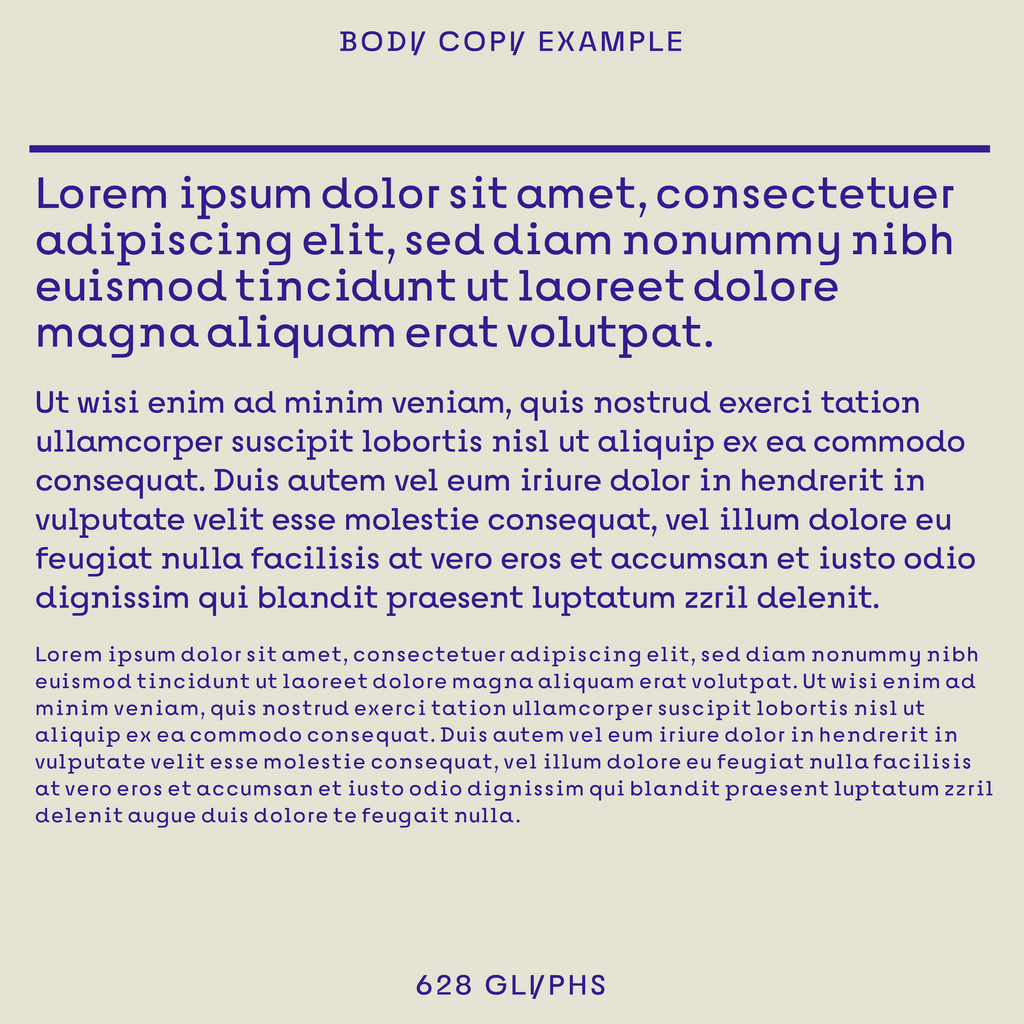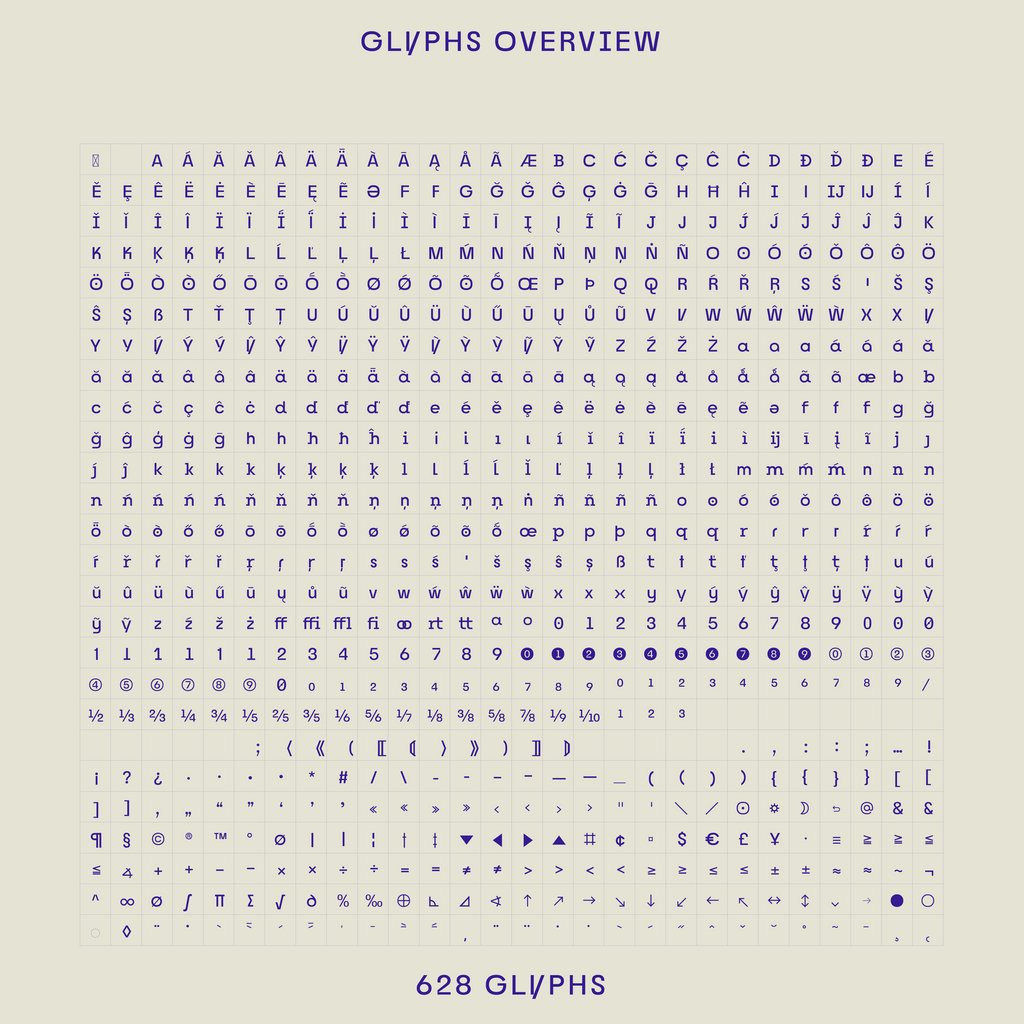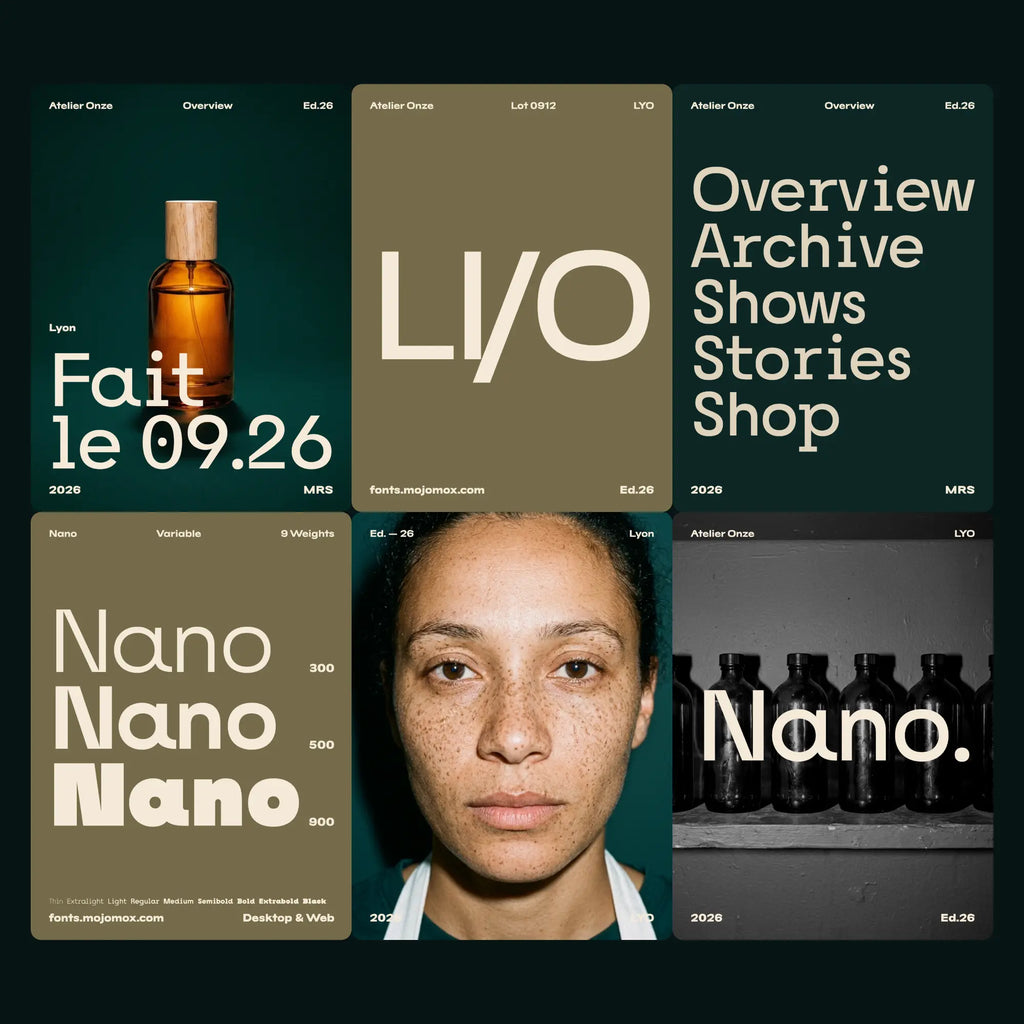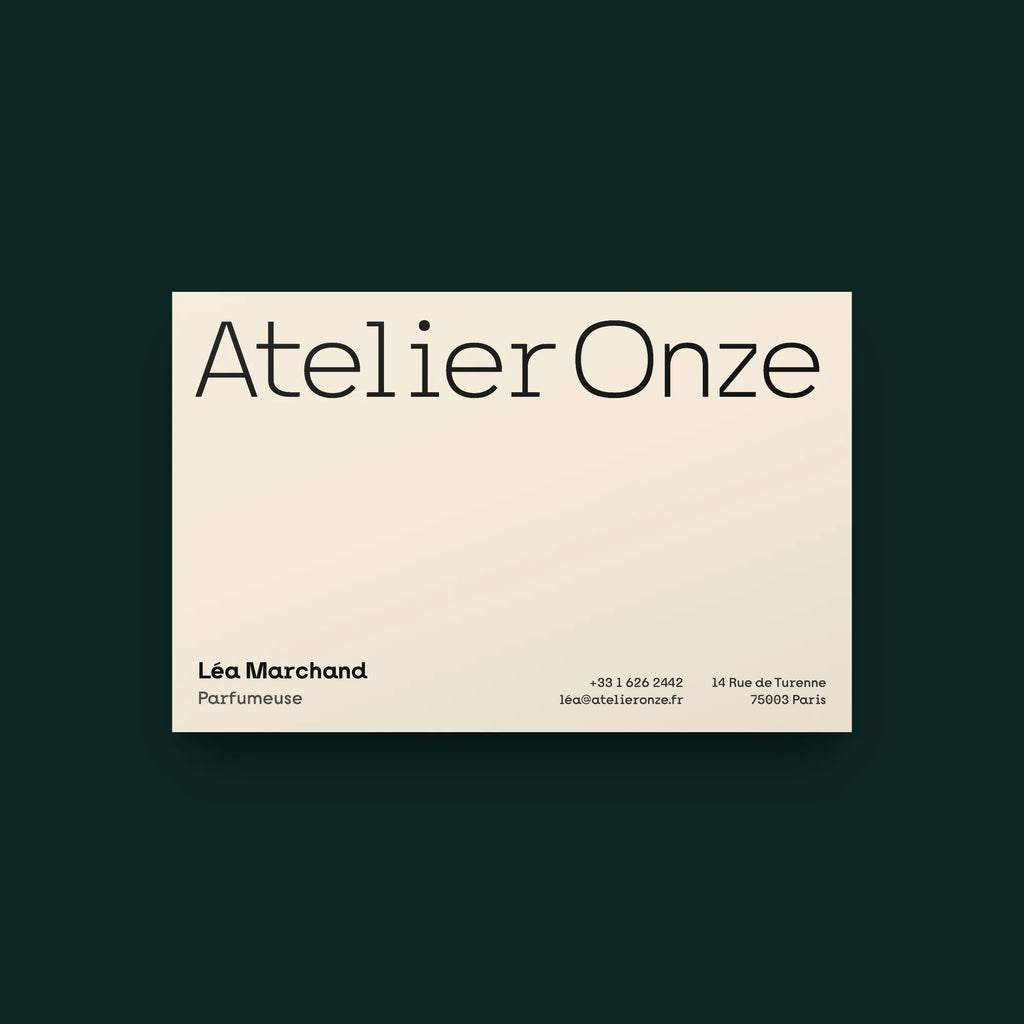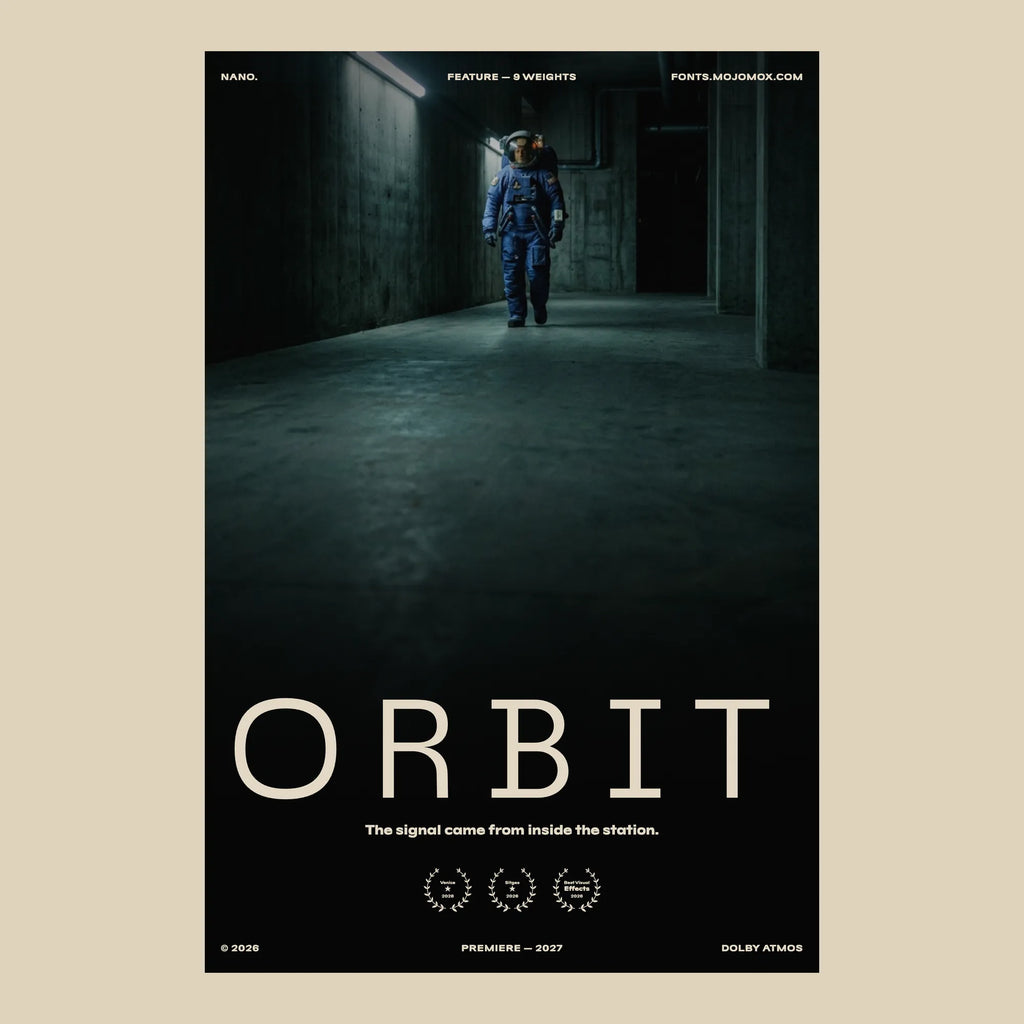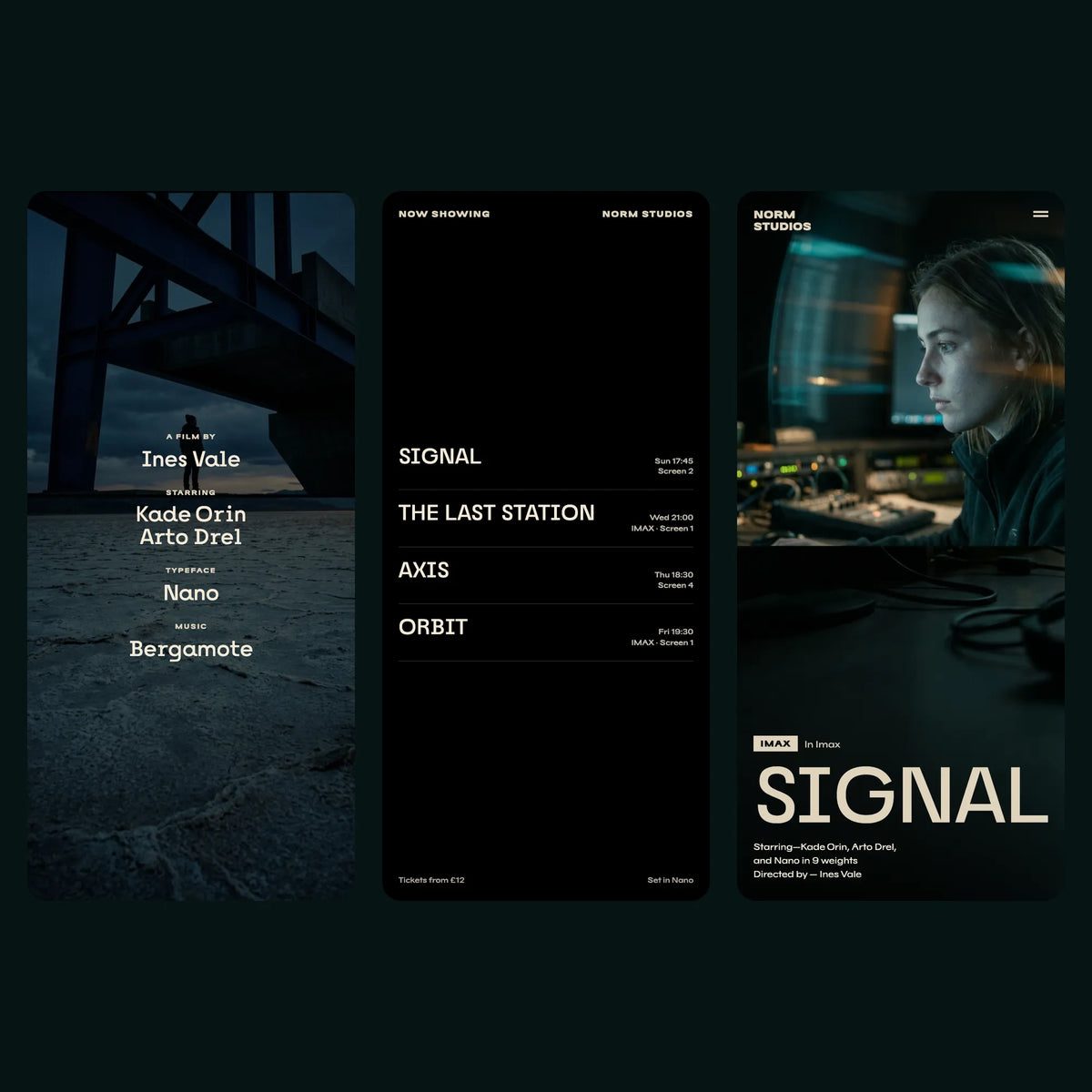
Nano—Bold Slab Serif Font, Monospaced Look
About Nano · Slab serif · Science and tech
Sharp, mathy and detailed.
Nano is a typeface with math character for science and tech branding, including display and body text. This font is drawn for tech branding but also for beauty brands with a personal and detailed quality. Nano has lots of alternate letters for unique logos and brand typography.
Sharp, geometric details give architects, medical brands and magazine covers a clean, edgy look.
Good for
- Tech
- Science
- Beauty
- Architects
- Magazine covers
Nano in detail
Family
9 weights, Thin to Black, plus a variable font. 762 glyphs, 5 stylistic sets.
Languages
Latin, Western European, Central European.
Figures
Proportional, tabular, slashed zero.
OpenType
Case-sensitive punctuation, discretionary ligatures, fractions, standard ligatures, ordinals.
Ligatures
ff fi fflon by defaultffi tt oo rtdiscretionary, switch on in your app